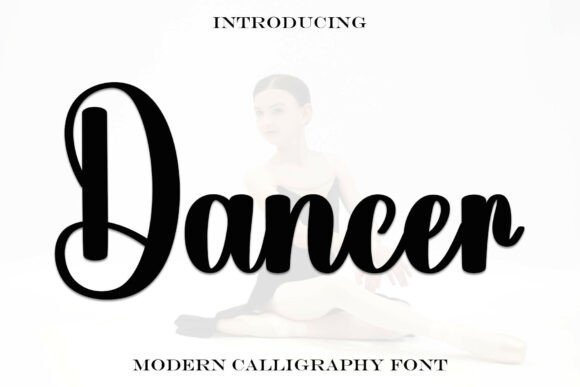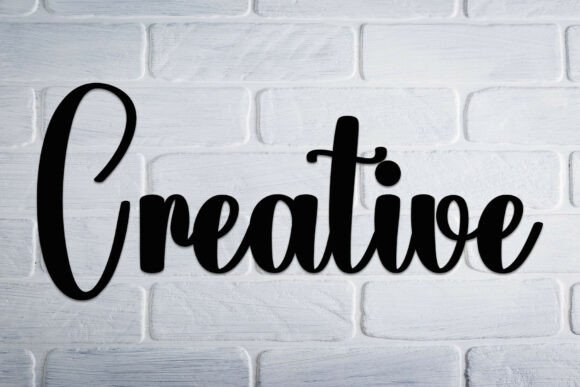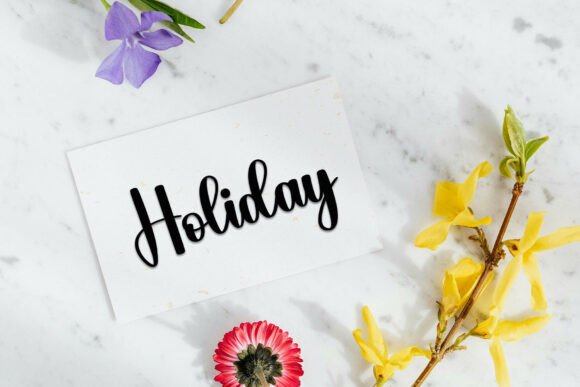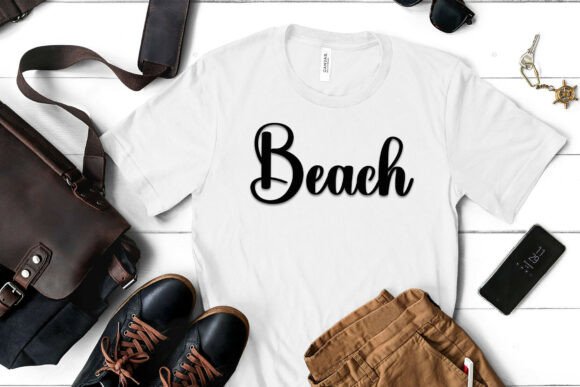
Dancer Font: Elegant Script for Wedding Invitations & Logo Design
About the Dancer Font
From logos to headlines, the Dancer Font is the perfect choice for making a lasting impression. Dancer is a sweet and cursive handwritten font. This gentle font will look gorgeous on a variety of design ideas. It will add a joyful and romantic touch to each of your projects! Perfectly fit for branding, logo, wedding things, greeting cards, fashion, lookbook, marketing promotion, and any time you want your design to look fancy and elegant but still casual.
Dancer’s fluid forms are ideally suited for headlines, short text blocks on invitations or packaging, and logos requiring a touch of elegance and playfulness. Its cursive nature, however, makes it less effective for body copy or UI elements where readability is paramount. Extended use would hinder legibility.
This font’s personality is undeniably romantic and friendly, yet possesses a sophisticated air. Brands focusing on fashion, beauty, weddings, or artisanal goods would find it particularly fitting.
Pairing Dancer with a clean sans-serif like Montserrat for body text or a geometric sans-serif like Futura for supporting elements creates a balanced and visually appealing contrast. For a more traditional feel, a classic serif like Garamond could be used.
Dancer Font Usage Examples
Dancer Font Example